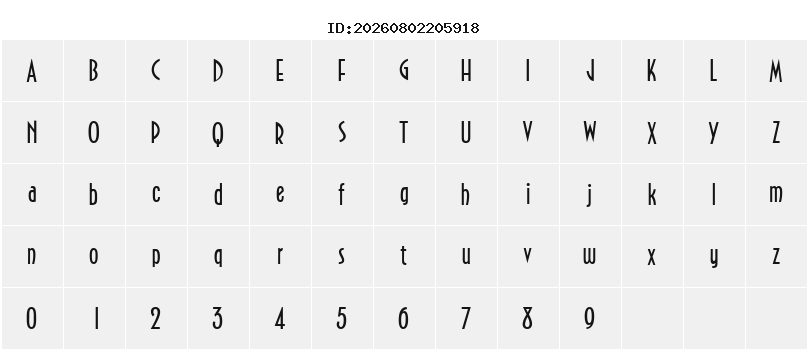
Northfields Preview
• Font Name: Northfields
• Full Font Name: Northfields-Regular
About Northfields.ttf
Northfields.ttf is a modern, elegant sans-serif font designed for ultimate readability and visual harmony. Perfect for branding, headlines, web design, and print materials.